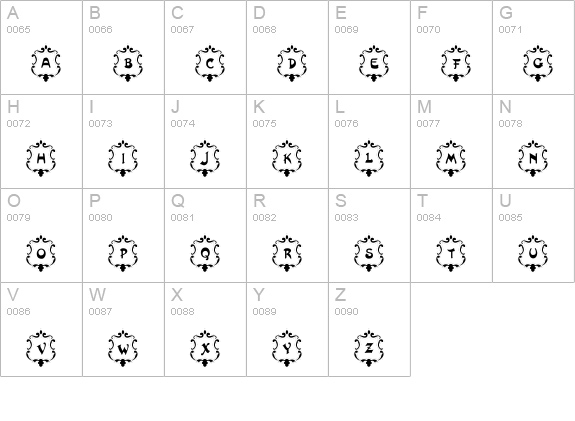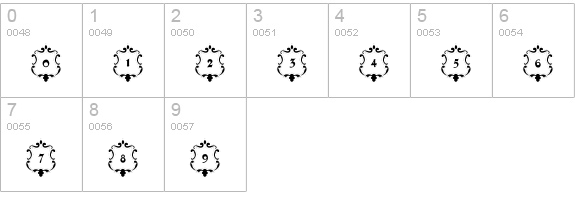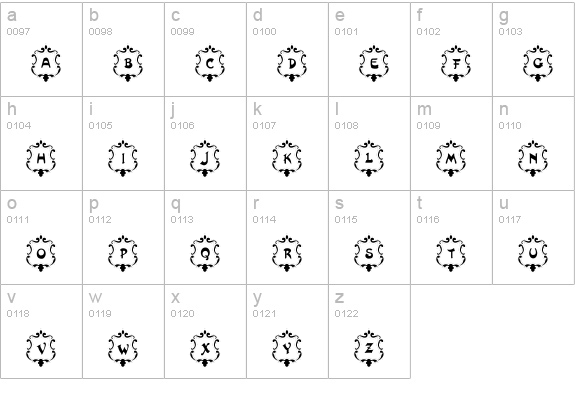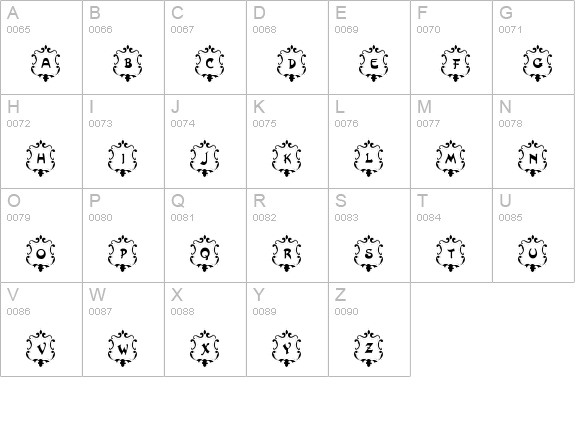
Introducing the stunning and versatile 101! Badges font, a must-have addition to your design toolbox! This unique font features a collection of eye-catching badges that are perfect for a wide range of projects. Whether you're designing logos, posters, packaging, or social media graphics, this font is sure to make your creations stand out. The best part? 101! Badges font is available for free download at FontsMarket.com! That's right, you can easily access this amazing font without any cost. With its bold and distinctive style, this font will add a touch of creativity and flair to your designs. Don't miss out on the opportunity to enhance your projects with this fantastic font - download it today and let your creativity soar!